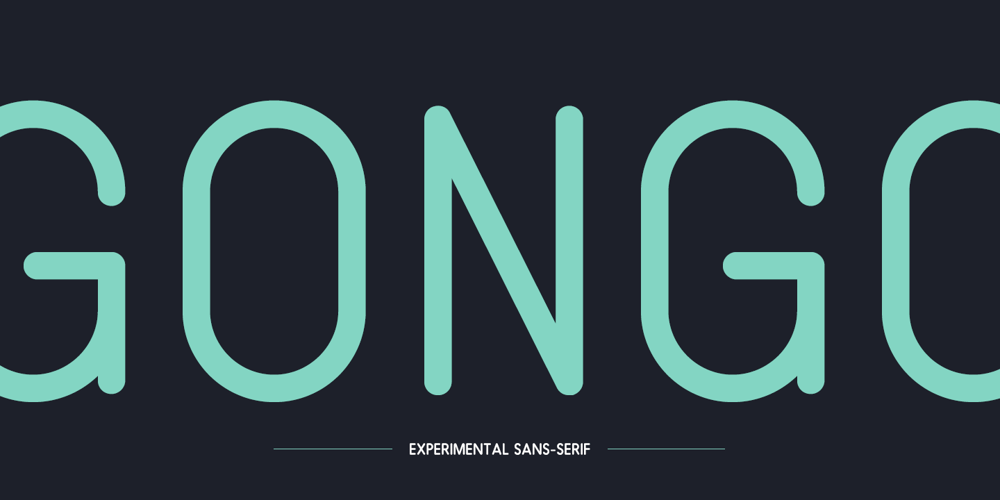
Gongo Font Family was designed by published by HyperFluro. Gongo contains 2 styles and family package options. Childlike on the surface, Gongo hides the maturity and wisdom of age. Flowing freely across the page with a graceful ease, Gongo manages to make its mark with every letter, resonating deeper than first appearances. For authority backed up in a friendly tone or wisdom imparted in light hearted words, Gongo is the go to font.